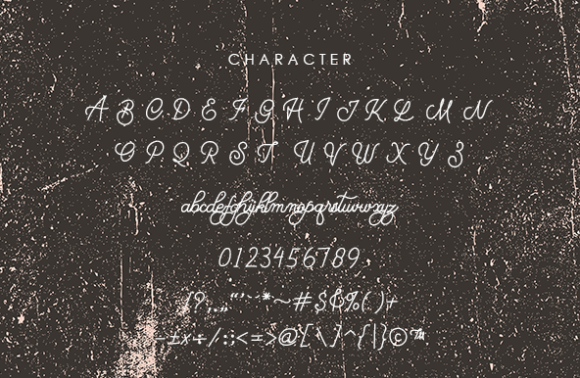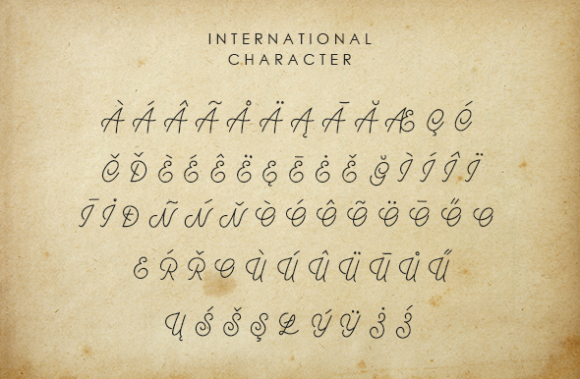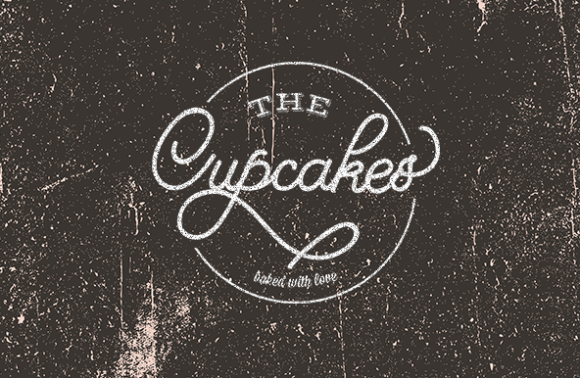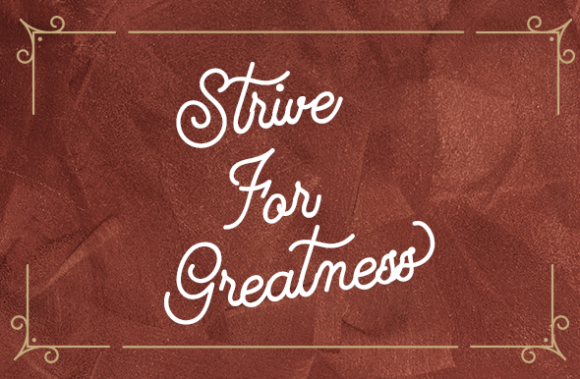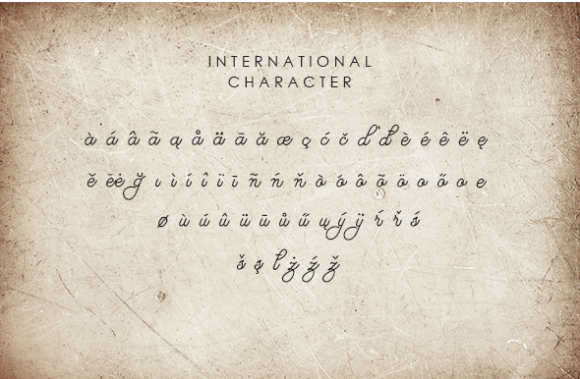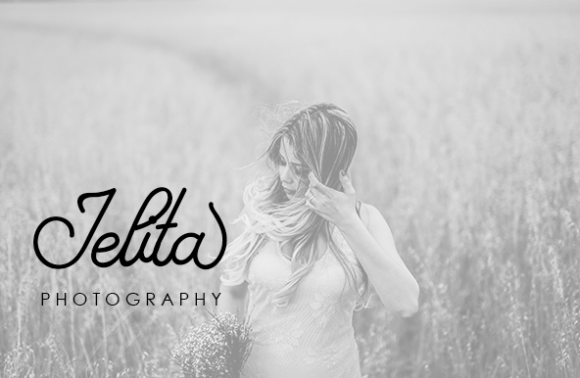
About Brithasdine Font
The Brithasdine is a beautiful monoline font with an unique style. It includes elegant movements and is perfect for adding some grace to your designs.
Itβs can be used for branding projects, logos, wedding designs, social media posts, advertisements, product packaging, product designs, labels, photography, watermarks, and any other design which needs a striking, yet elegant touch.